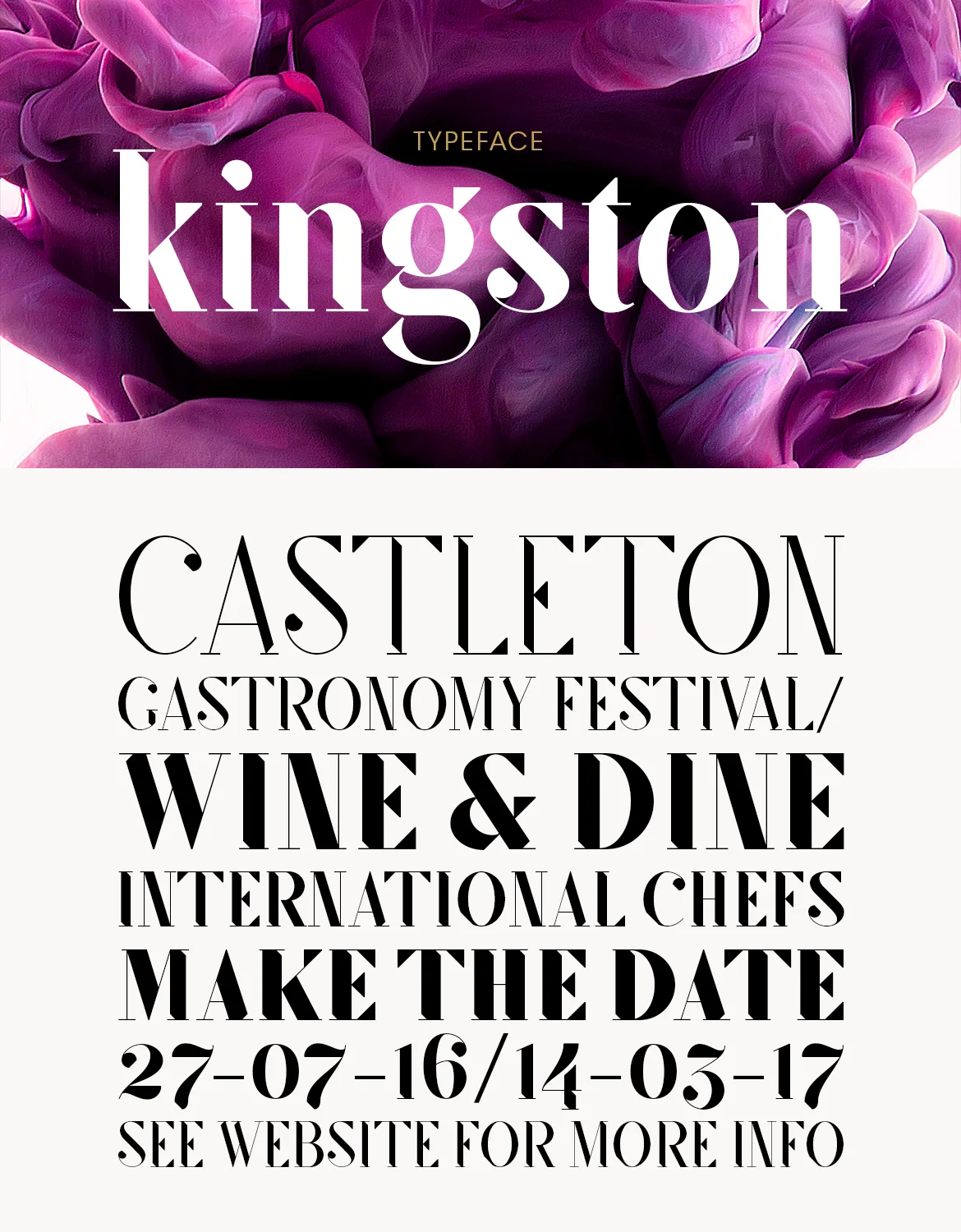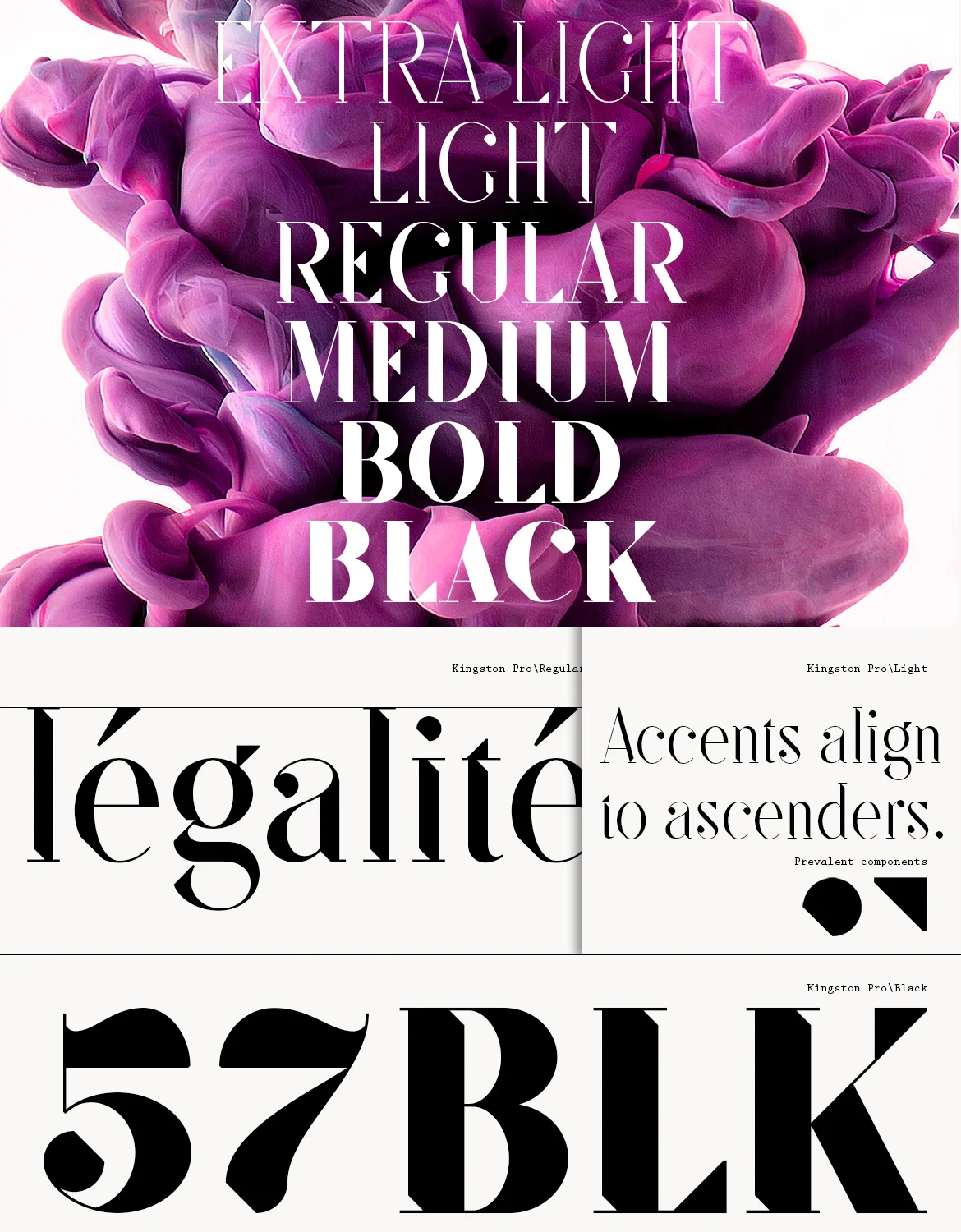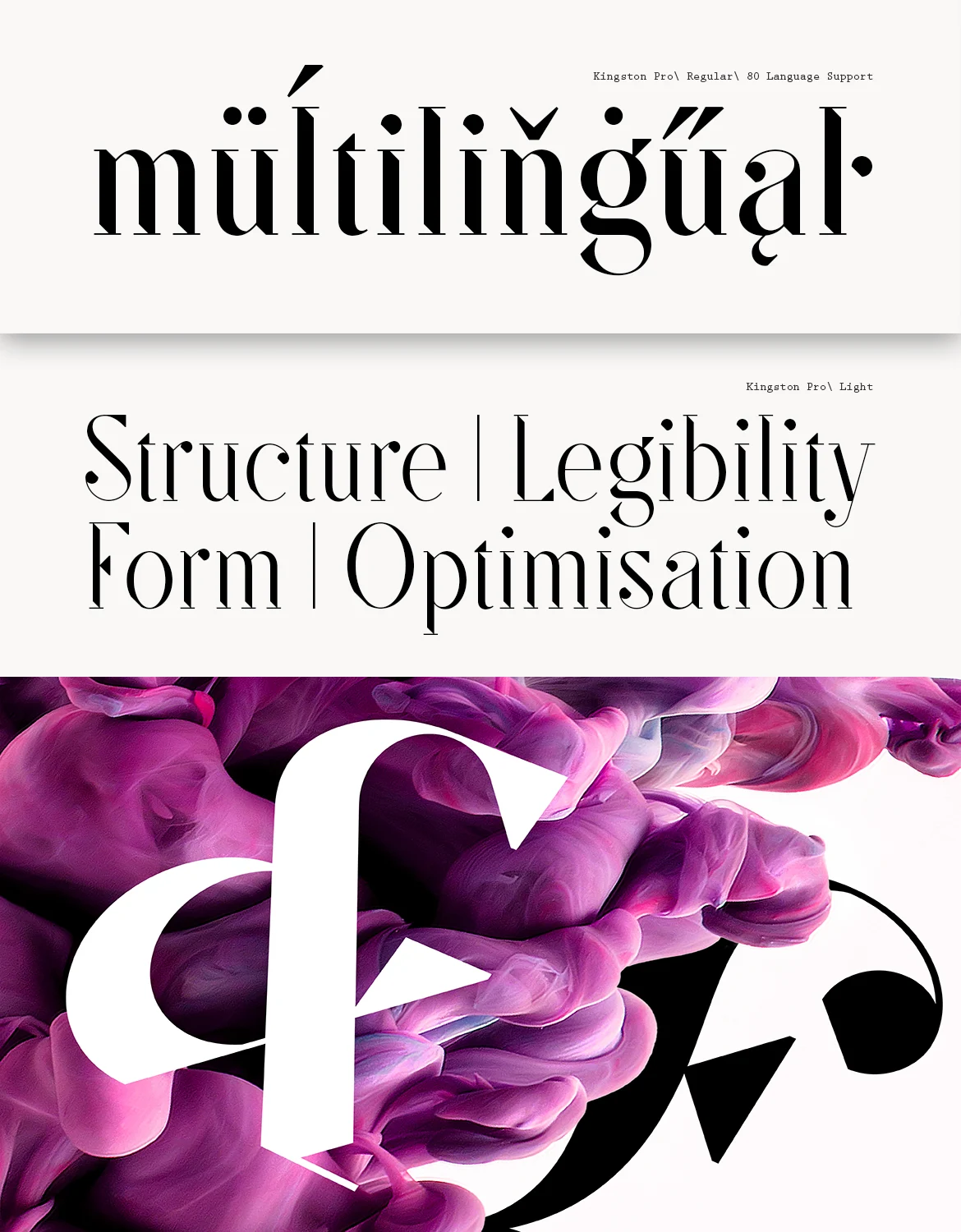
SF Kingston | Font
SF Kingston Pro is a contemporary Serif Didone typeface comprising of 6 weights (Extra Light, Light, Regular, Medium, Bold, Black) and houses an extended Latin character set for 80+ Languages. The font is a blend of separate grid systems, combining geometric shapes with more fluid characteristics, creating an even blend of circular and triangular components. Indentations are prevalent throughout and help emphasise its core design, based on a 45 degree pitch. With a variety of subtle characteristics, SF Kingston is an elegant yet robust typeface.